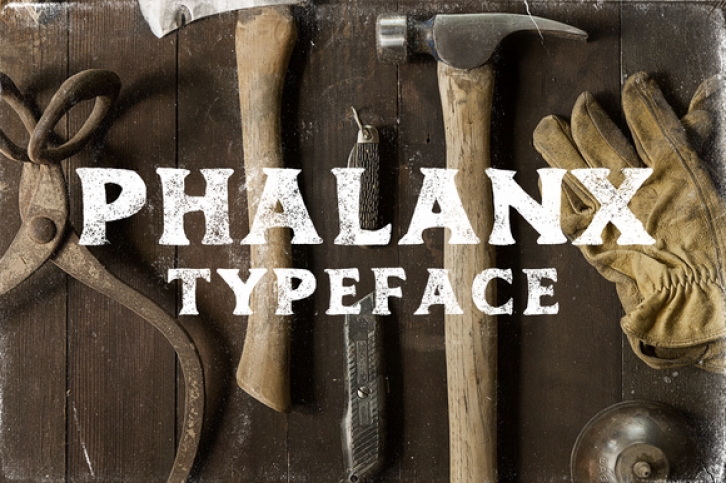
The Phalanx font is a unique font inspired by print catalogs from the early 1900’s. This style combined with the fact that Phalanx was drawn completely by hand give it a very vintage look & feel.
Phalanx is perfect if you are looking to add some personality and character to your designs.
The font contains the full alphabet and numeral characters.